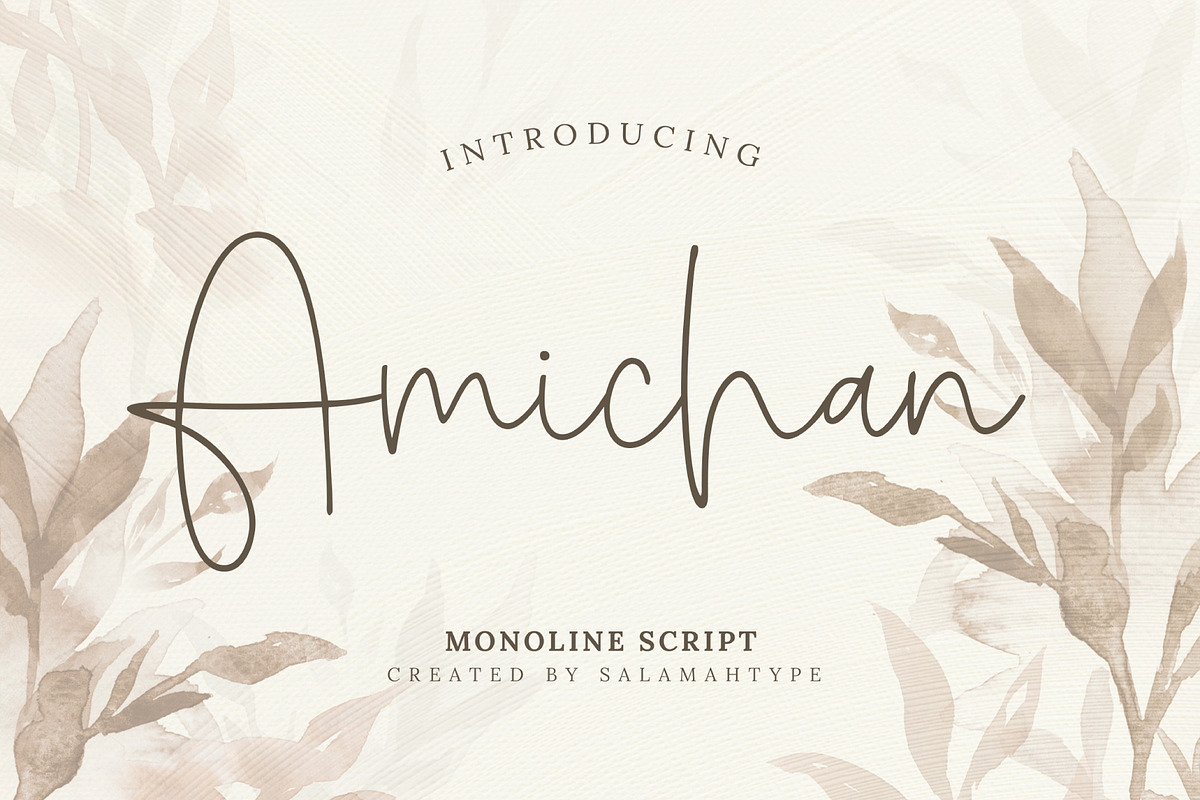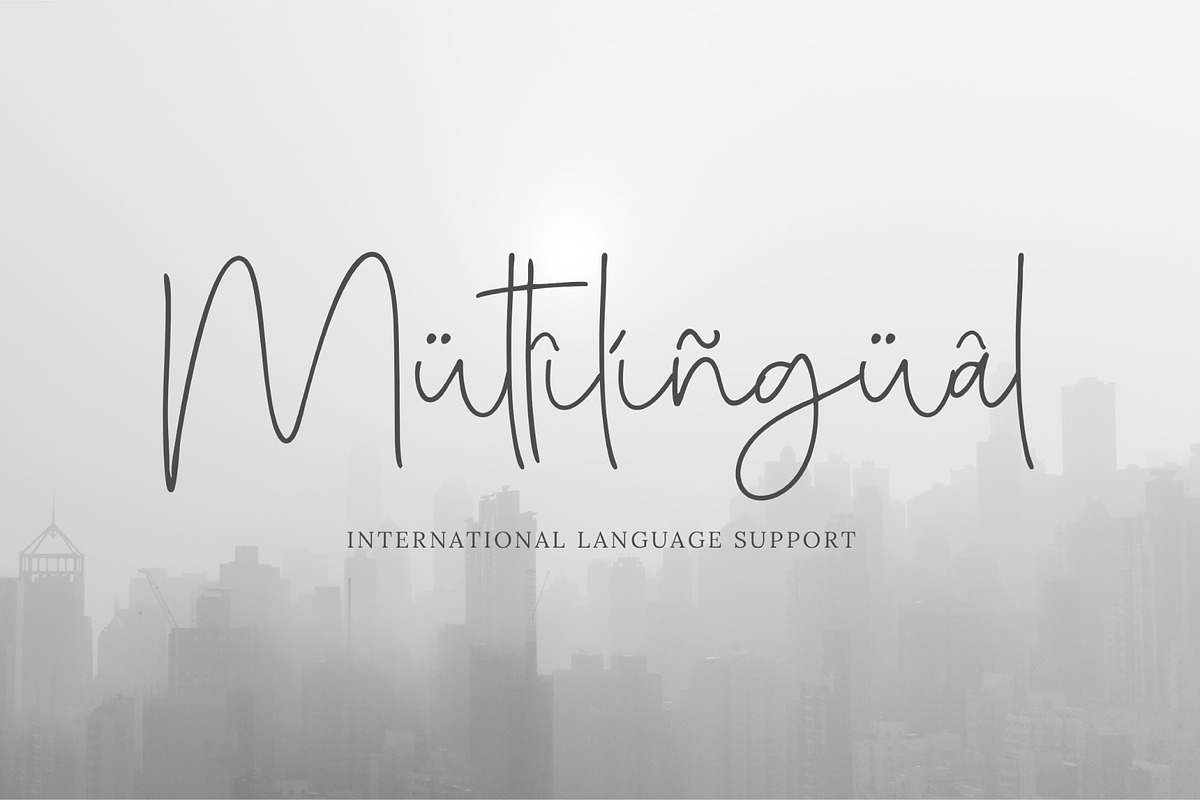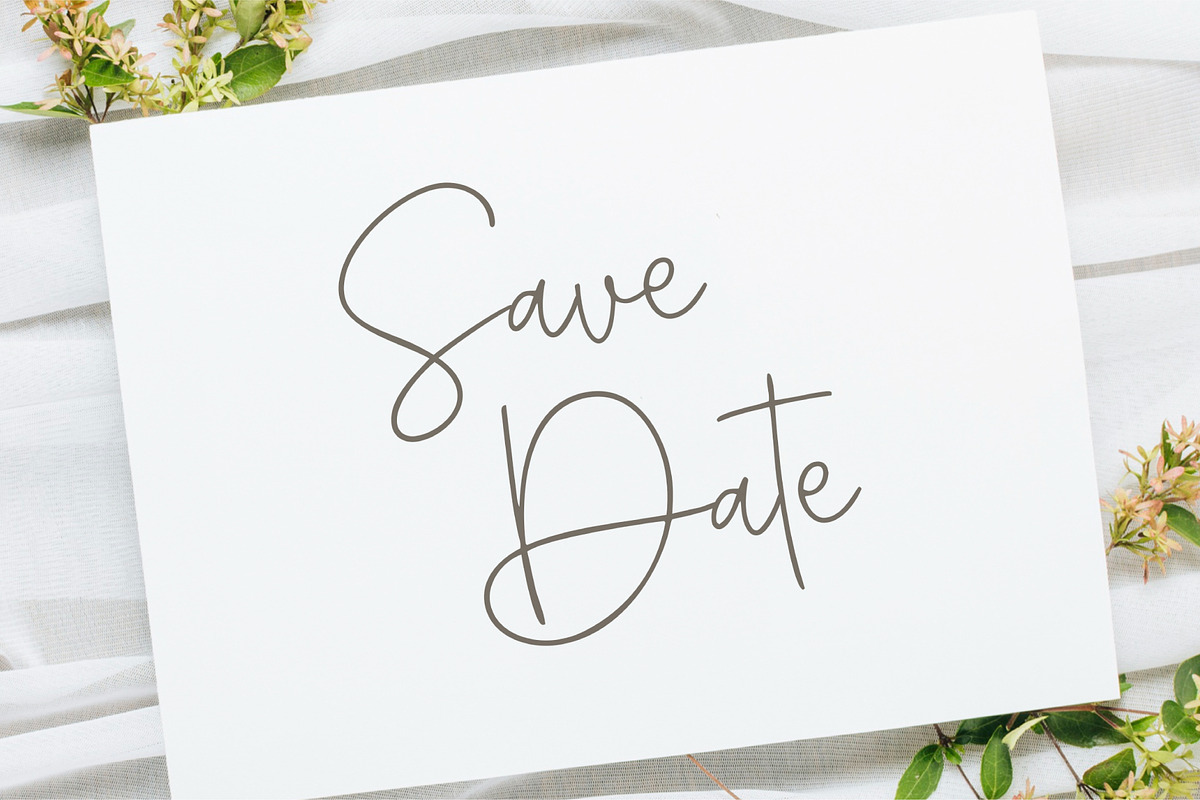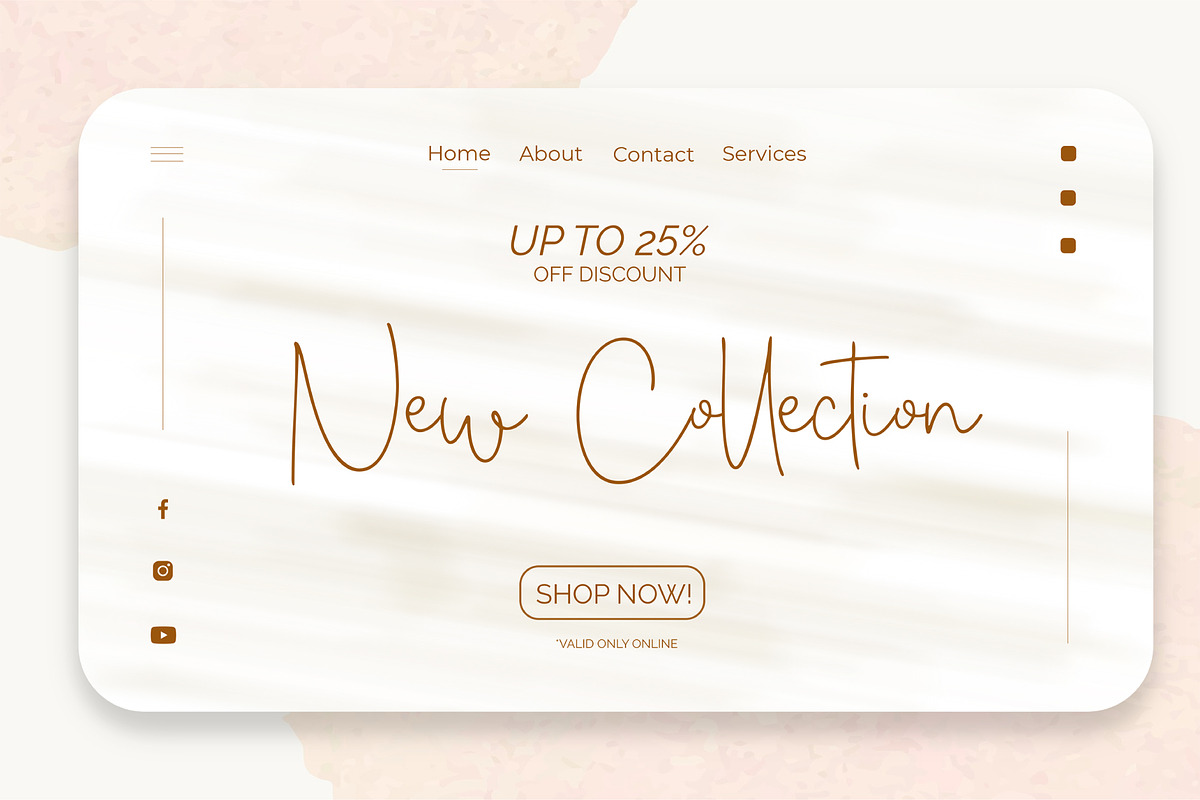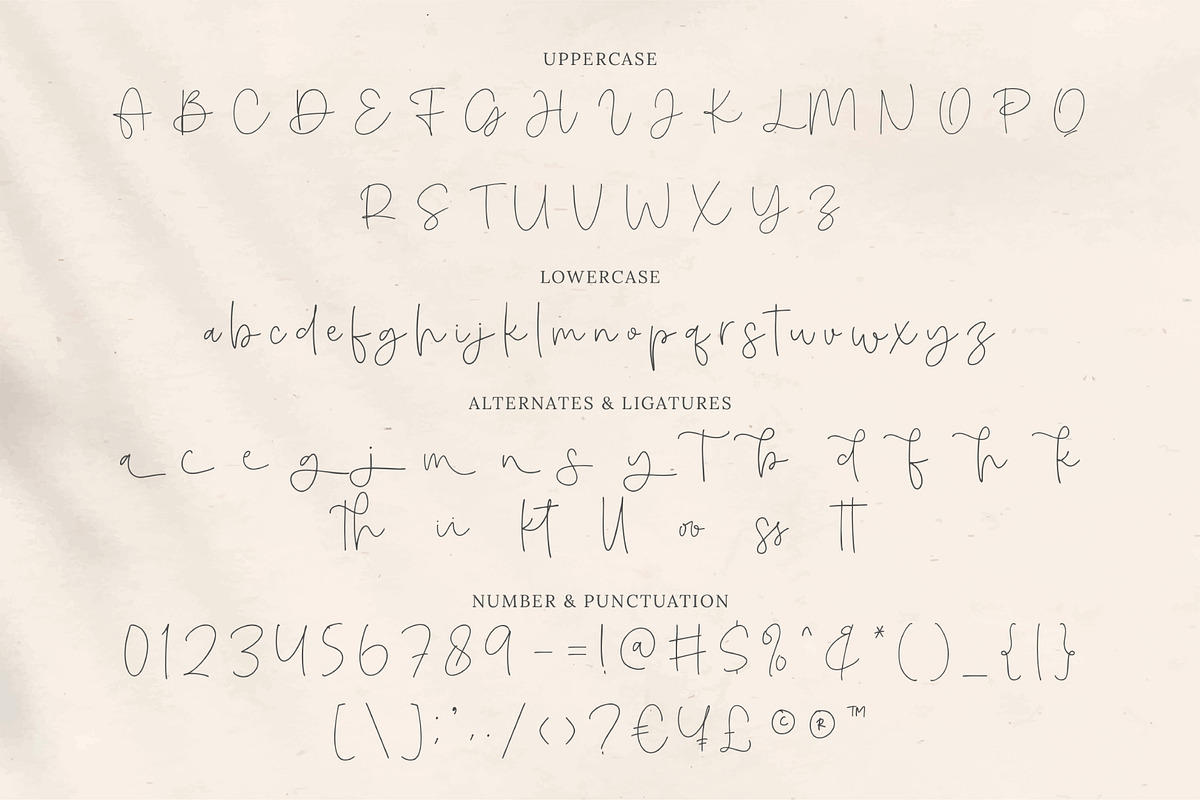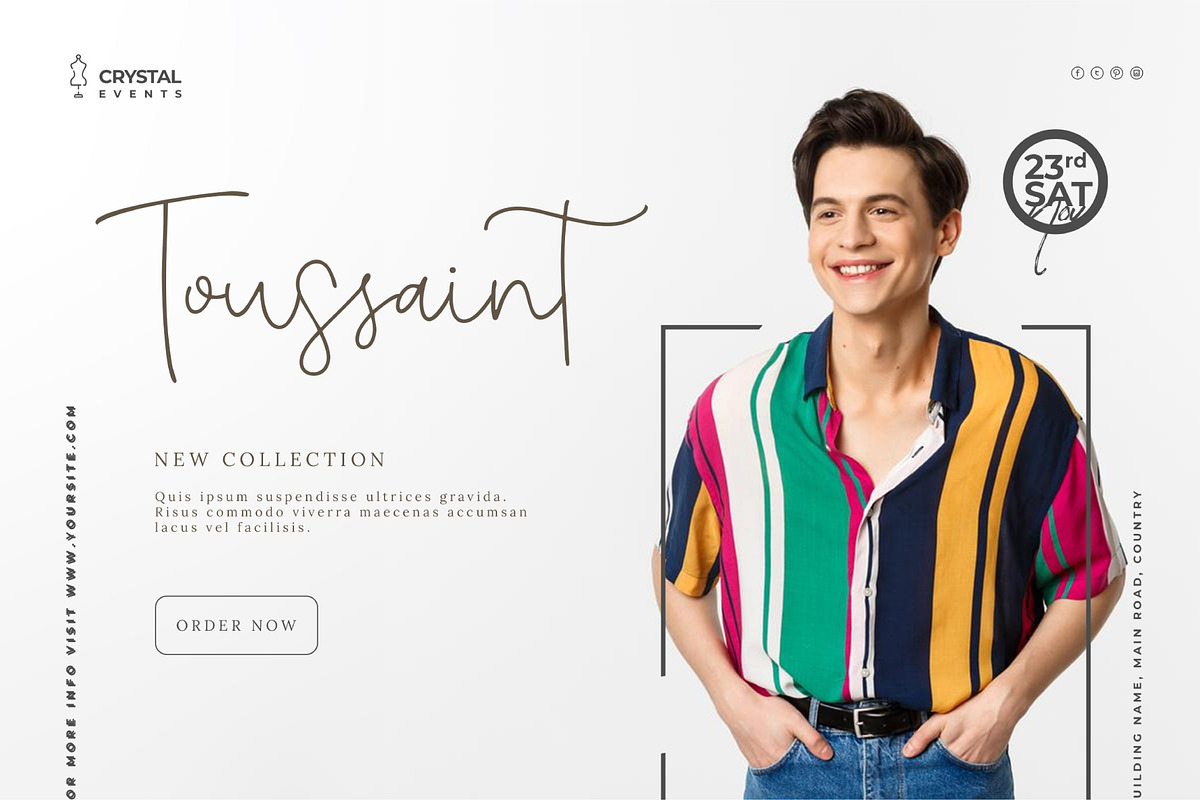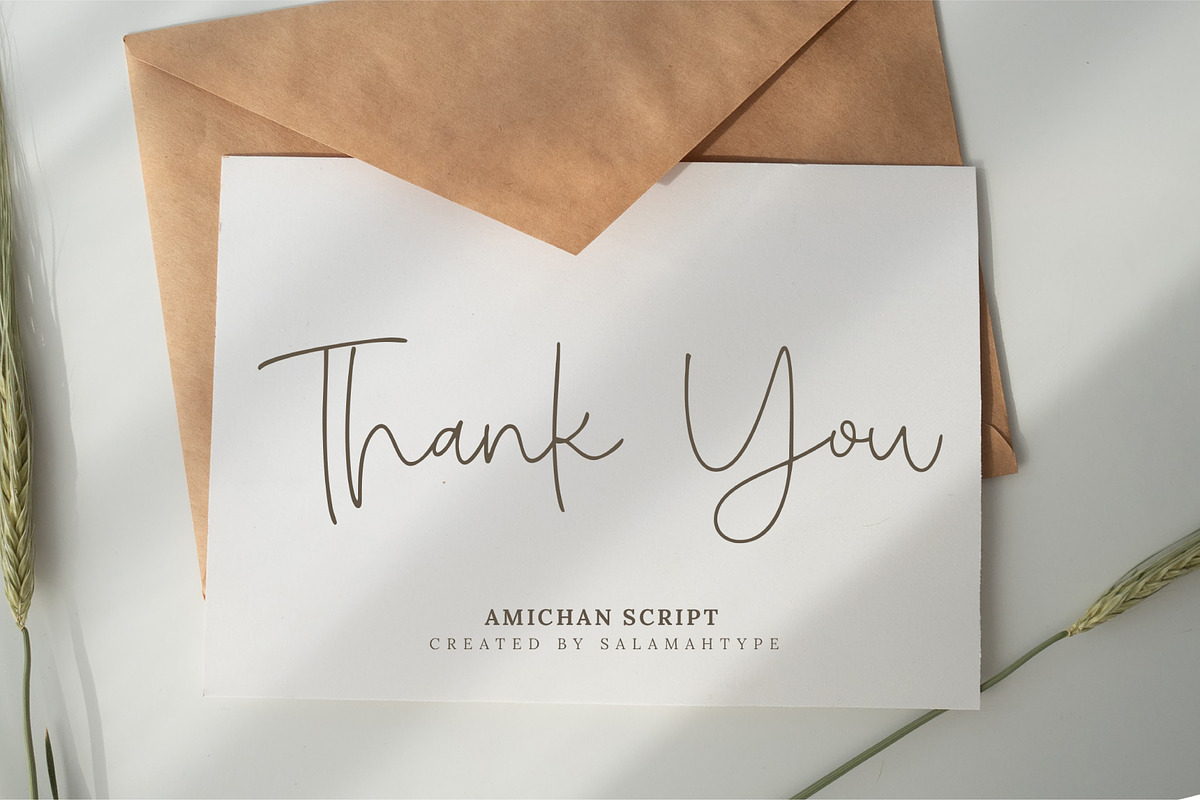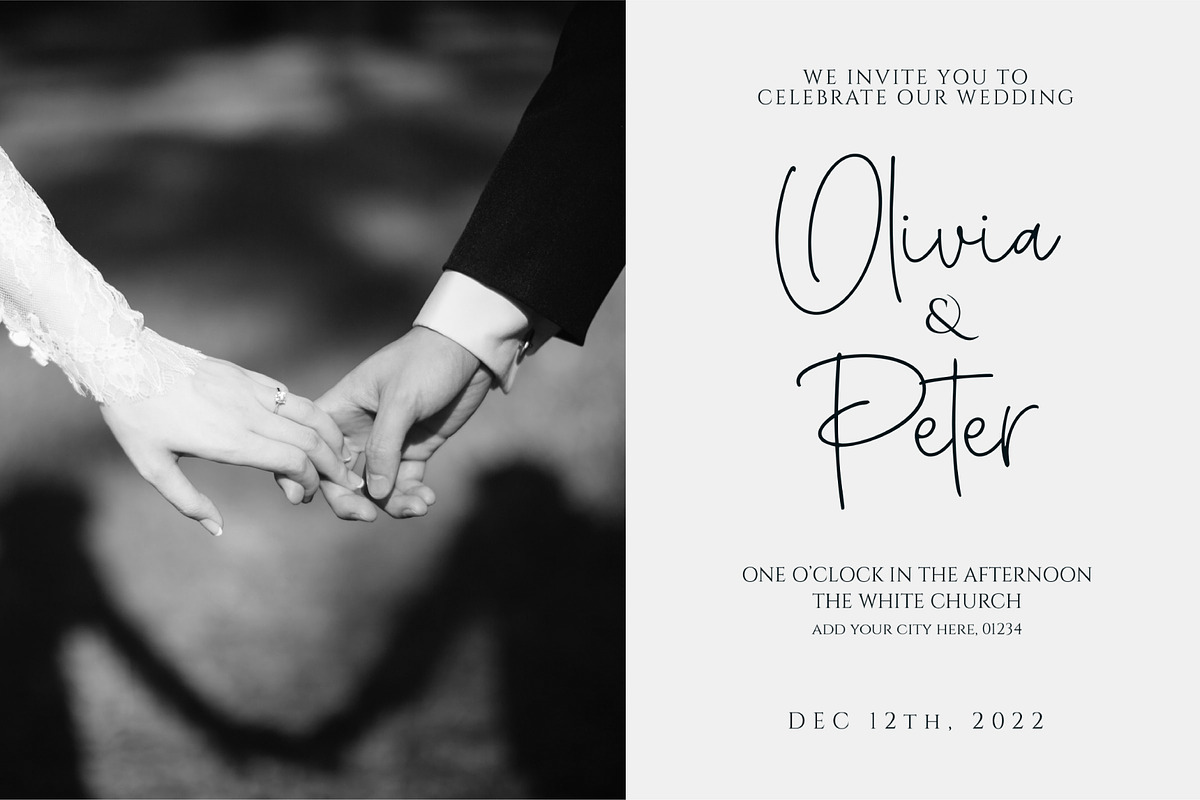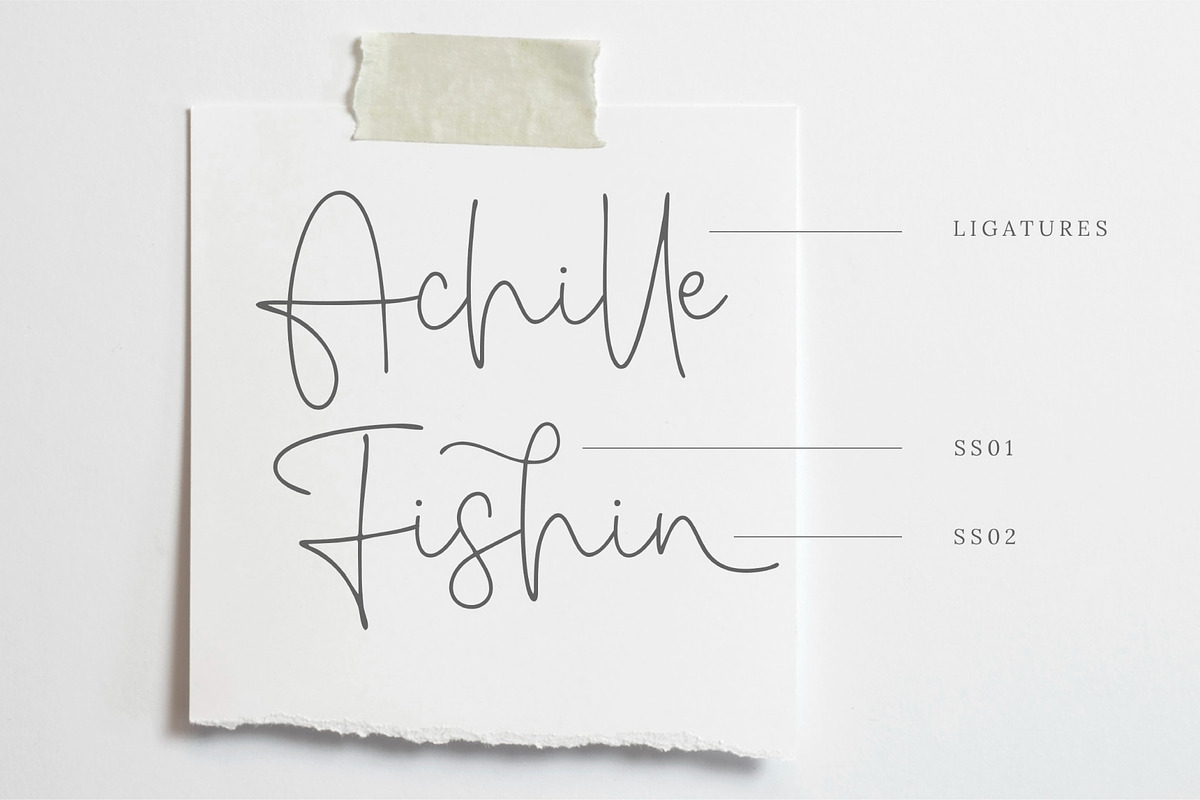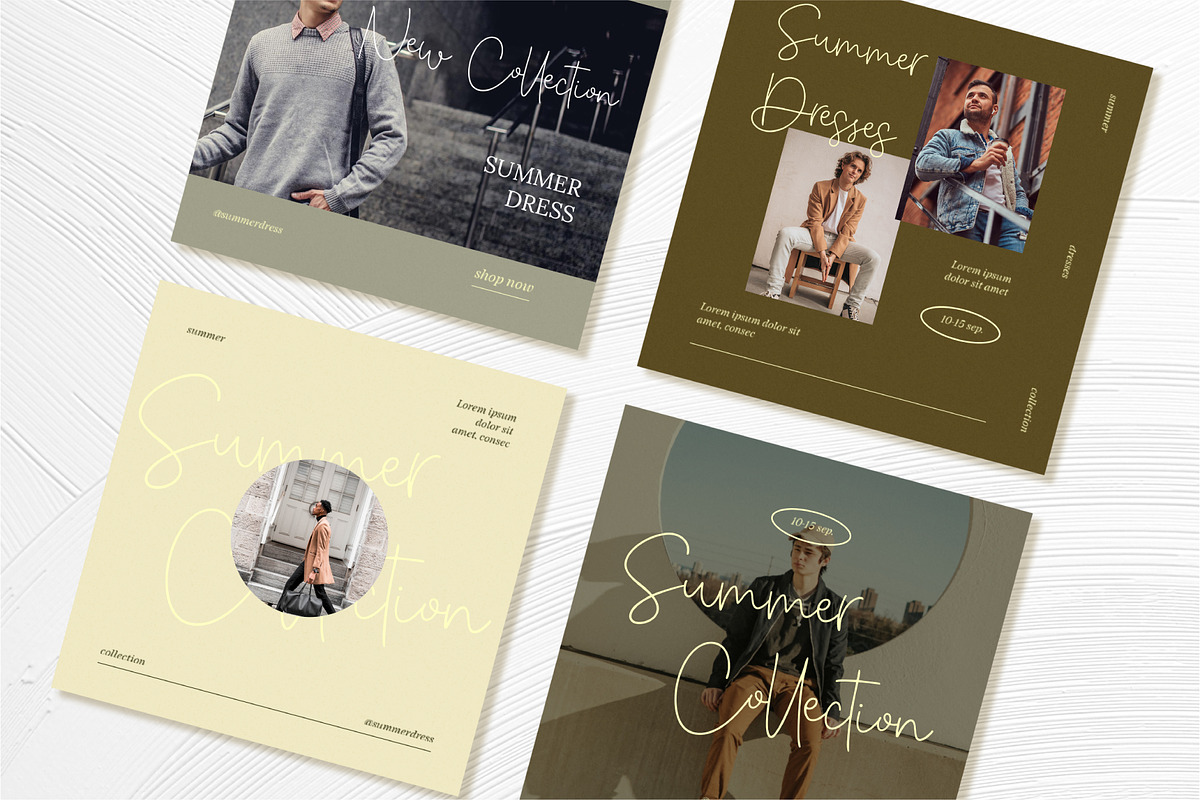
Amichan - Elegant Script
Introducing our script “Amichan” – An elegant and beautiful monoline typeface is perfect for websites, modern logos, brand identities, social media, quotes, wedding and anything you want!
- Punctuation & symbol
- Multilingual characters